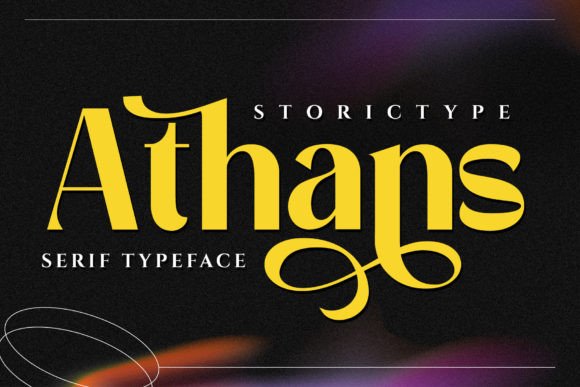
The Elegance of Athans Font: A Designer’s New Best Friend
I’ll never forget the time I was working on a wedding invitation project for a client who wanted something elegant, yet modern. I had spent hours browsing through font libraries, but nothing seemed quite right. That was until I stumbled upon Athans Font. Its bold, serif lines and elegant curves immediately caught my attention, and I knew I had found the perfect fit. In this article, I’ll share my experience with Athans Font, its features, and how to make the most of it in your designs.
An Honest Review of Athans Font
• ✨ Elegant and bold serif design that adds a touch of sophistication to any project
• ✅ Highly versatile and suitable for a wide range of applications, from wedding invitations to social media posts
• 💫 Beautifully crafted to ensure excellent readability, even at small font sizes
• 🎨 Extensive range of OpenType features, glyphs, and stylistic alternates to enhance your designs
While Athans Font is an excellent choice for many projects, there are a few minor quirks to be aware of:
• 🤔 Some users may find the font’s boldness overwhelming for certain applications, such as body text.
The Story Behind Athans Font
Athans Font was designed with the intention of creating a versatile, elegant font that could be used for a wide range of applications. The designer aimed to craft a font that would be both beautiful and functional, with a focus on readability and OpenType features. The result is a stunning font that is sure to elevate your designs.
Q: What type of projects is Athans Font best suited for?
Athans Font is an excellent choice for wedding invitations, stationery, social media posts, and any project that requires an elegant, yet modern touch.
Q: Is Athans Font suitable for body text?
While Athans Font is beautiful and elegant, its boldness may make it less suitable for extended body text. However, it’s perfect for headings, titles, and short paragraphs.